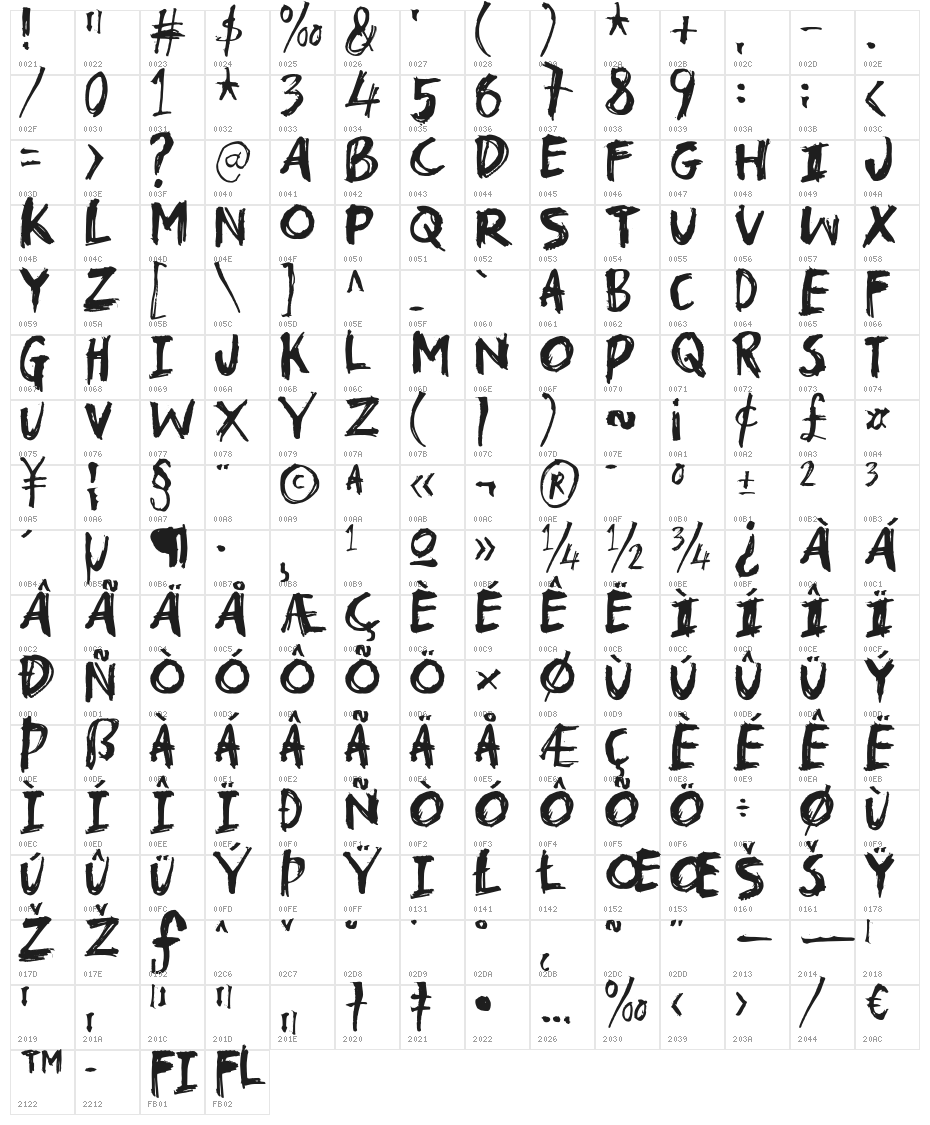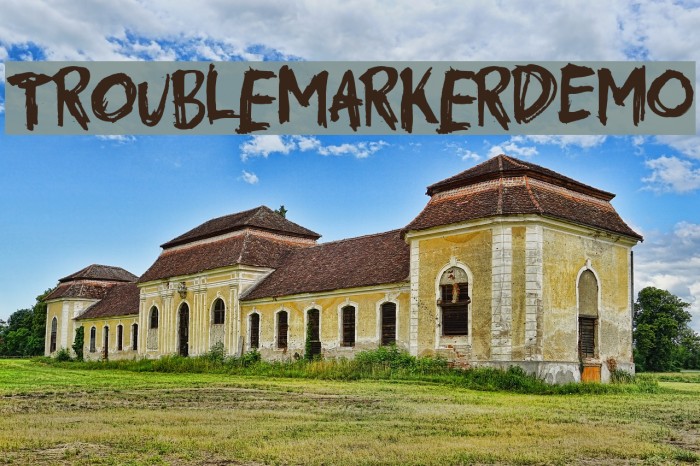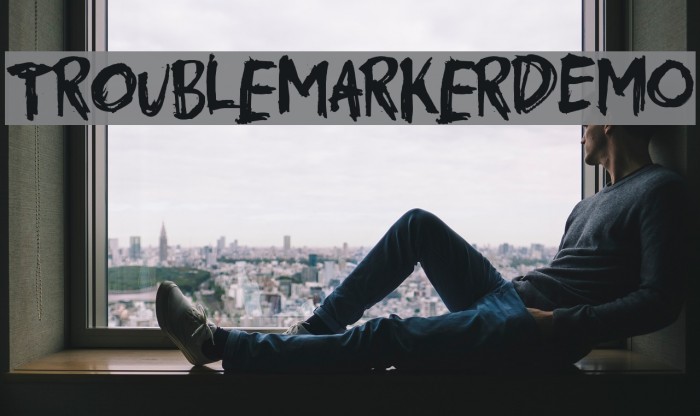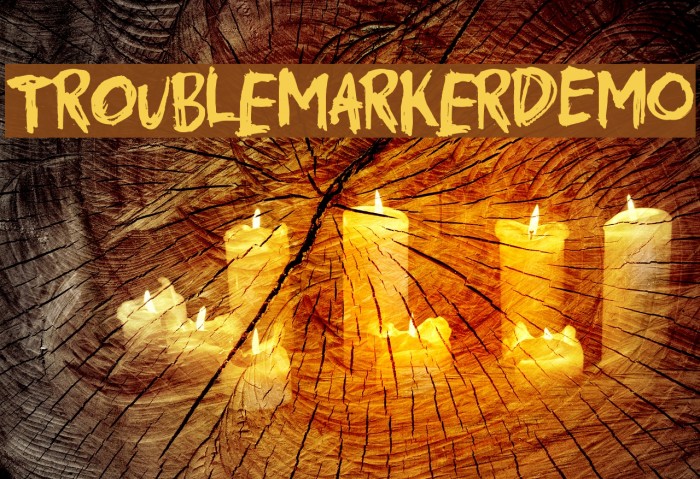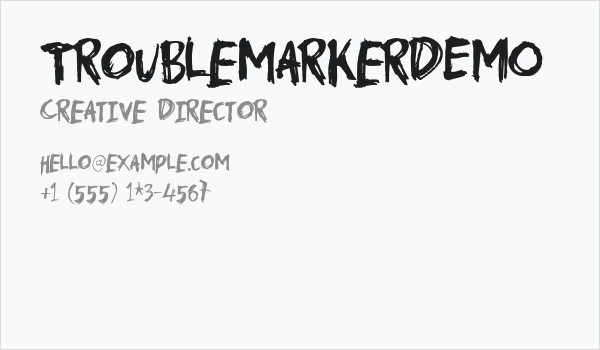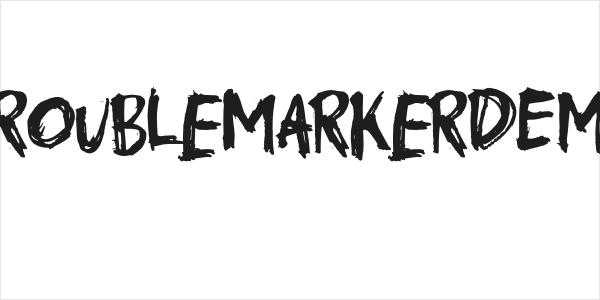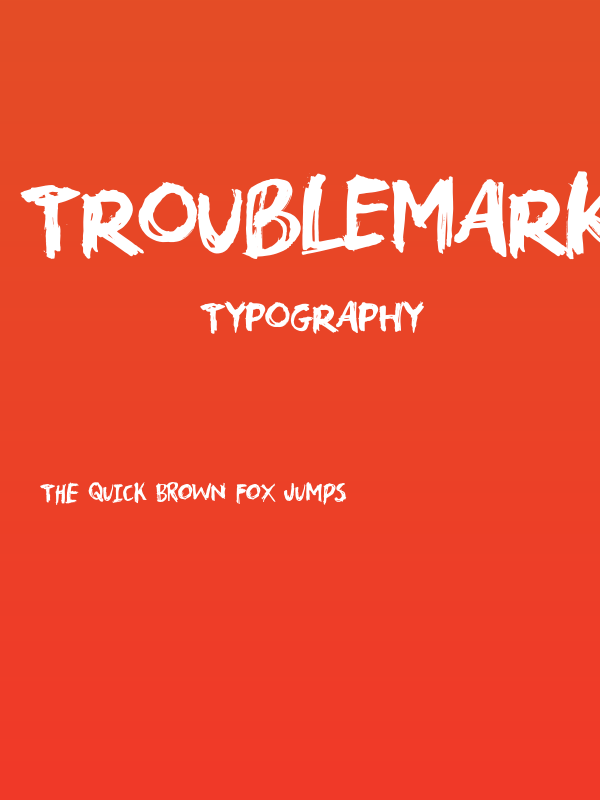
TroublemarkerDEMO Font
TroublemarkerDEMO Description
This font exudes a bold and rebellious character, with its brush-like strokes and uneven edges. The letters are dynamic and energetic, giving off a sense of movement and spontaneity. The uppercase and lowercase letters maintain a consistent style, with a rough, hand-drawn appearance that adds a personal touch. Numbers and special characters follow the same aesthetic, ensuring a cohesive look across all text. The font's raw and expressive nature makes it ideal for projects that require a strong, impactful presence.
| Overall Style | Modern, Urban |
| Proposed Projects | Ideal for music album covers, graffiti art, streetwear branding, and event posters. |